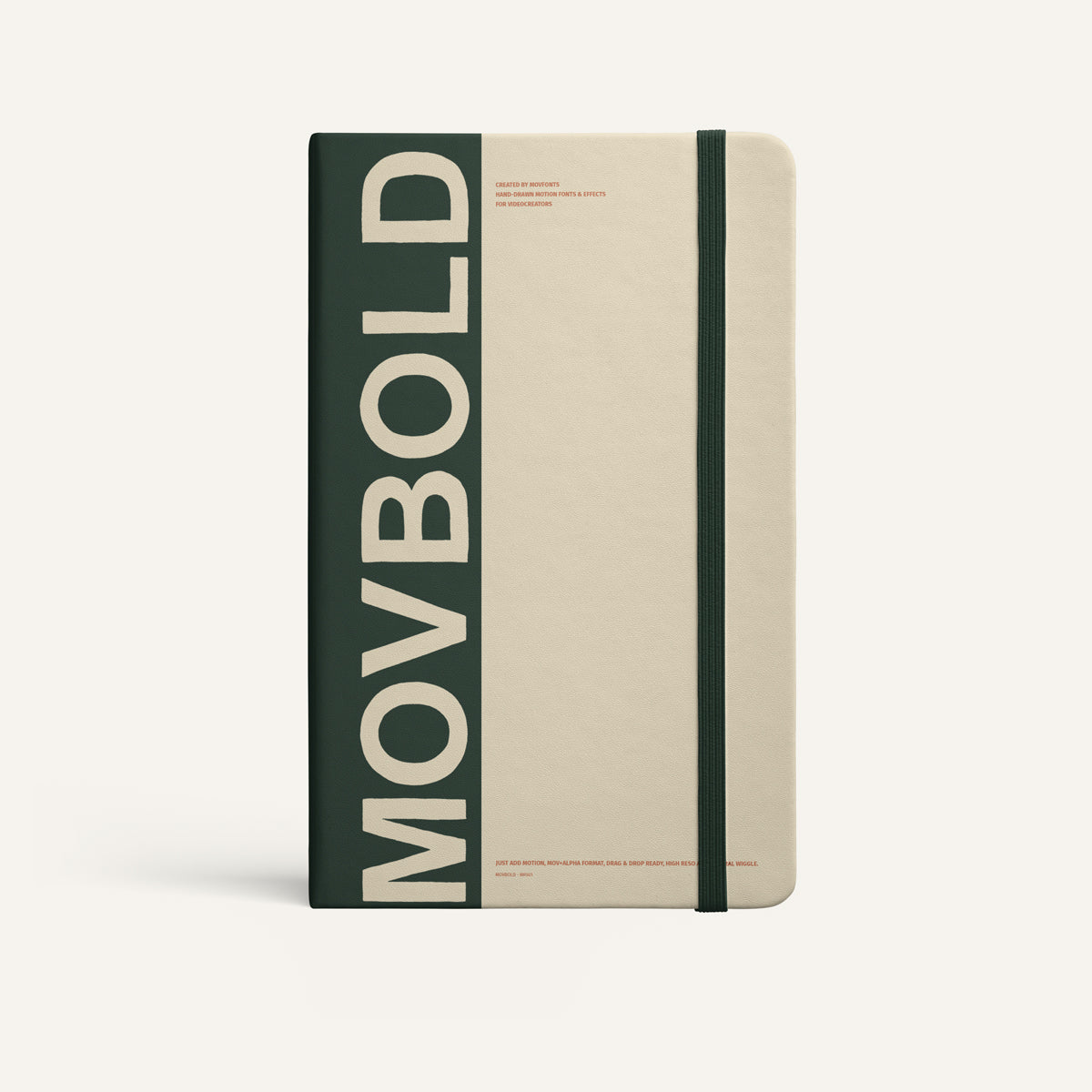
MOVBOLD
MOVBOLD is the most essential font in the MOVFONTS family. Built to fit seamlessly into any kind of video, from moody short films to energetic reels.
Its simplicity is its strength — sharp, steady, and human. Both uppercase and lowercase letters are included, all drawn by hand, frame by frame.
Every line has just enough wobble to feel alive.
・100% Hand-Drawn
・Natural Wiggle in Every Lines
・Animated and Loop Ready
・52 Animated Alphabets (A–Z, a–z)
・10 Animated Numbers (0-9)
・13 Animated Symbols (!, ?, #, etc.)
+ Bonus Motion Effects
18 extra hand-drawn motions.
Shapes, lines, sparks.
Just add some flair.